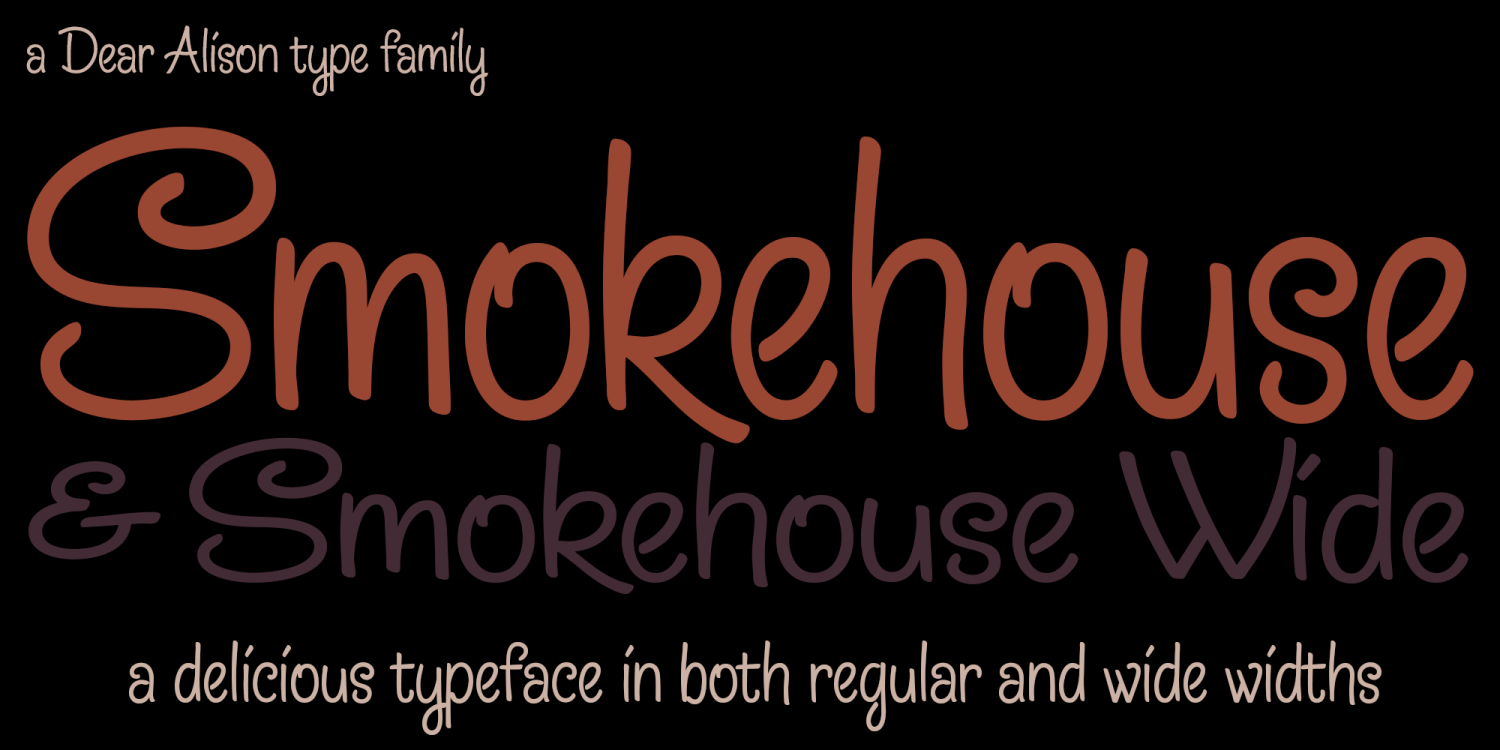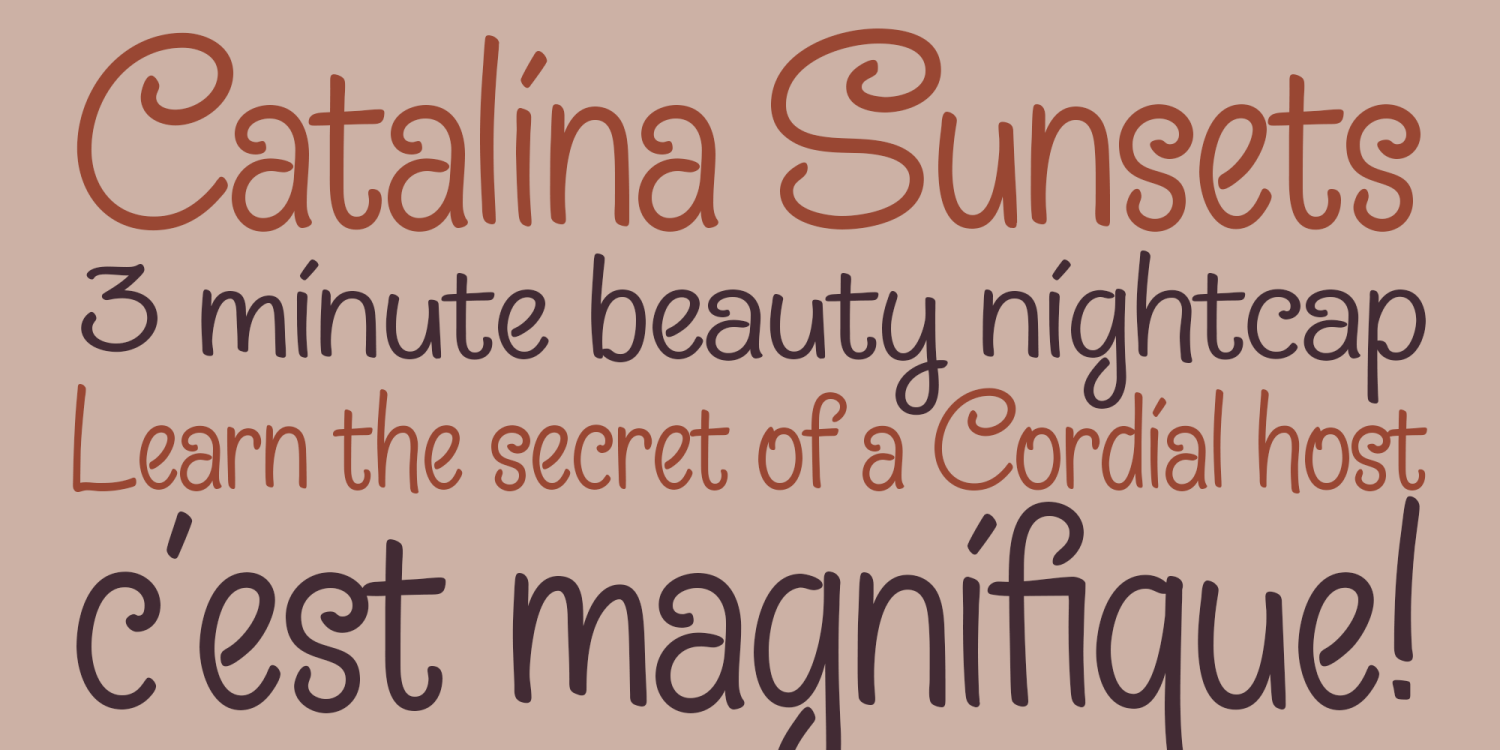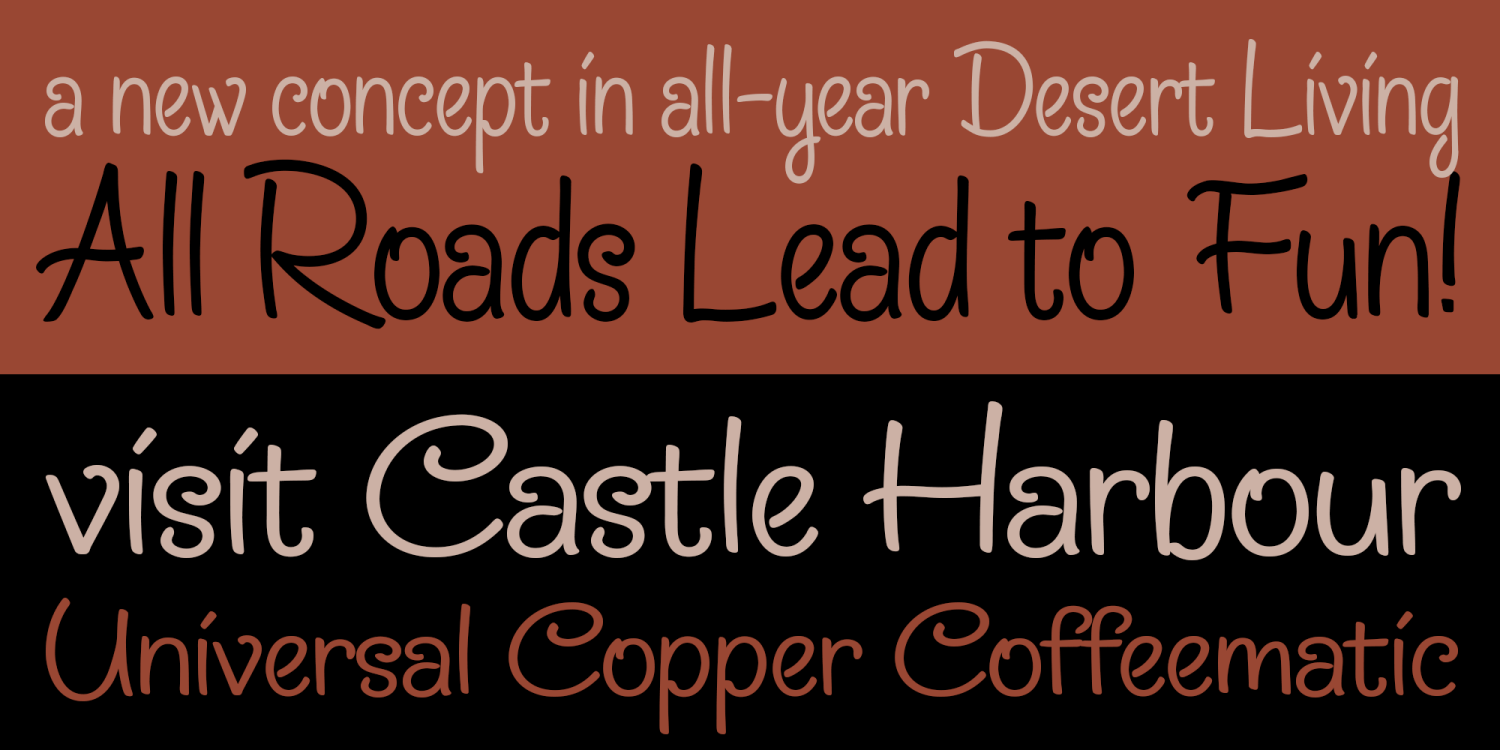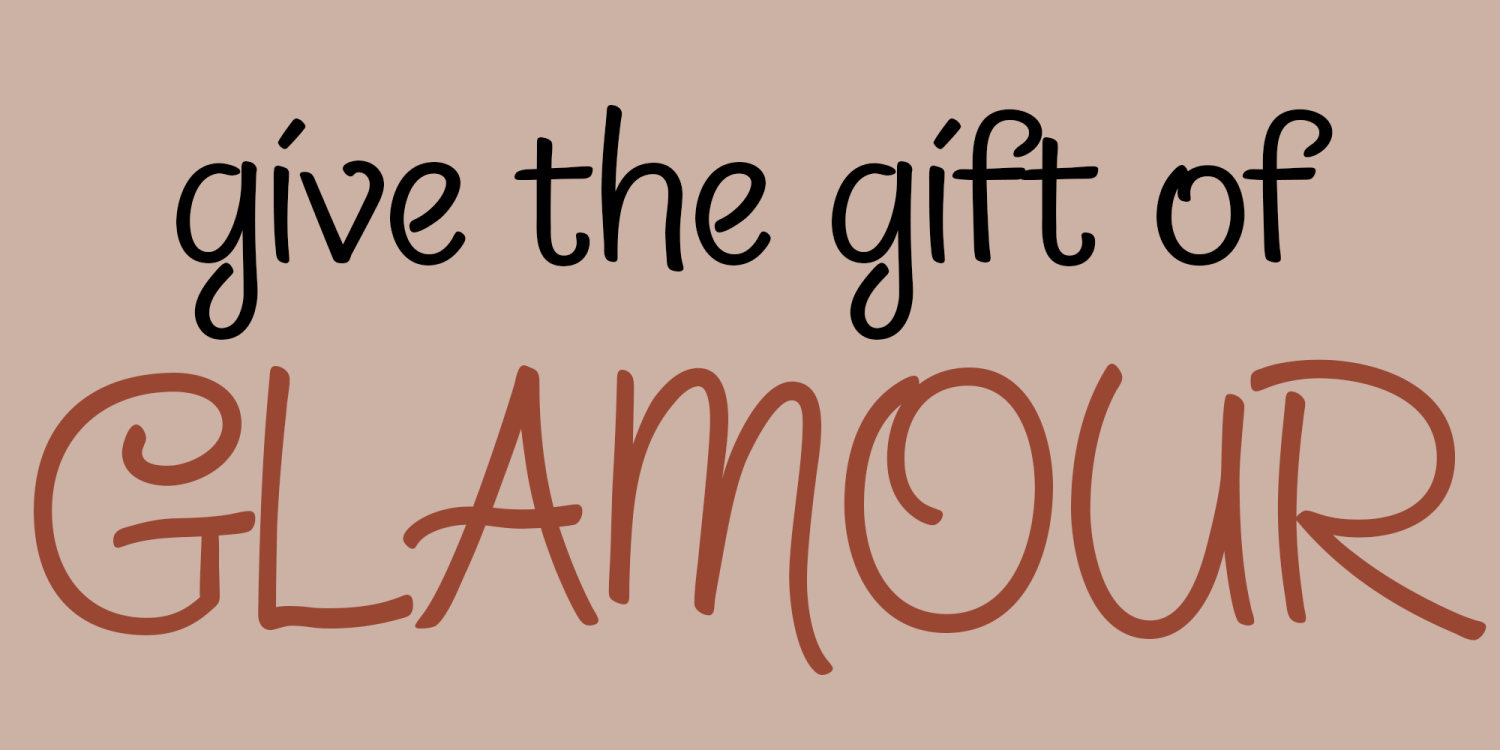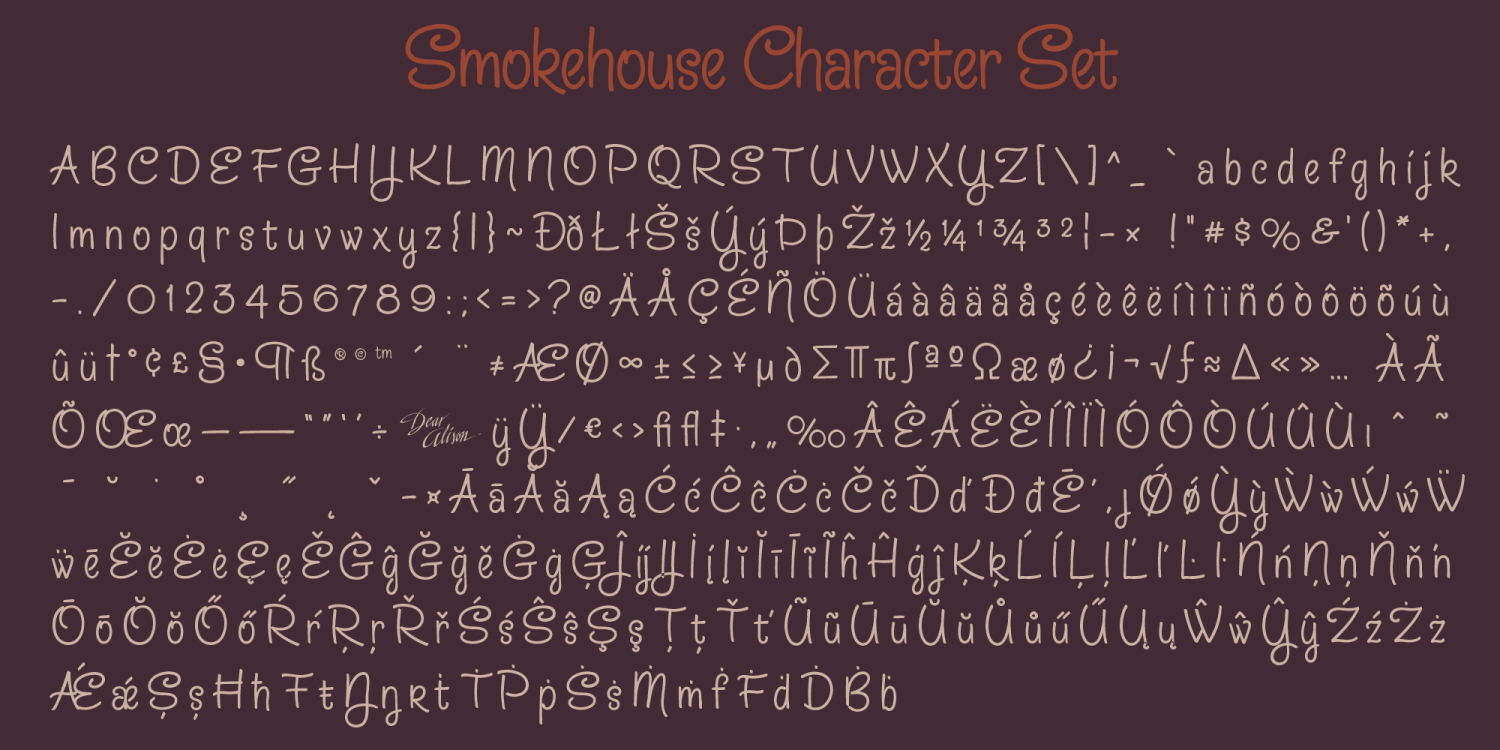
Smokehouse
Font Family by Dear Alison
Have you ever wondered what sign painters and rib joints have in common other than the fact that they can both make a mess? What do they know that you don't which would have them pair a sexy casual script with a down south barbeque restaurant?
Smokehouse is all about association. You'll find that this sexy casual script pairs well with a wide range of associations, from barbeque shacks to fairy princesses and everywhere in-between. It makes choosing the right font for the job an easy one, and for those that need to fill a little more space you'll find Smokehouse Wide is up to the task.